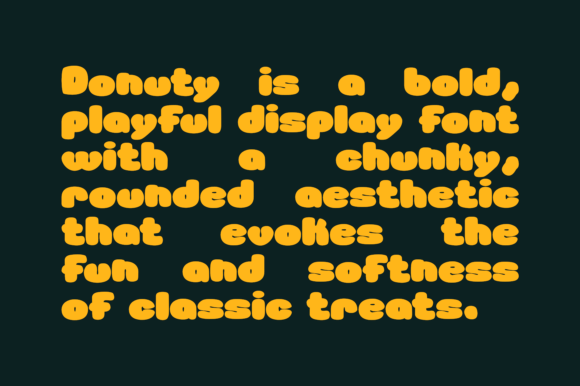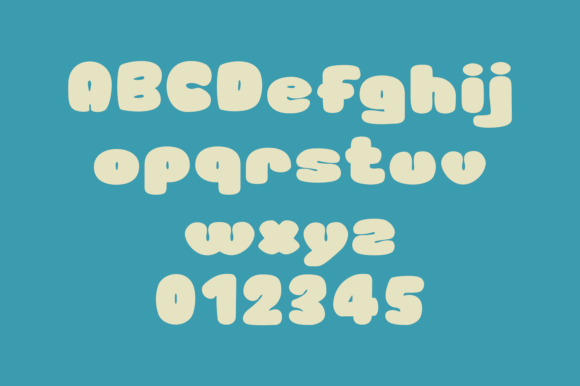
Introducing Donuty Font: The Playful and Cheerful Display Font
Are you looking for a font that can add a touch of fun and friendliness to your designs? Look no further than Donuty Font! This bold and playful display font is perfect for creating eye-catching designs that instantly grab attention. With its soft, rounded shapes and chunky, bubbly style, Donuty is ideal for a wide range of projects, from kids’ content to food branding and social media graphics.
The Unique Characteristics of Donuty Font
What sets Donuty apart from other fonts is its doughy, cartoon-like appearance. The font’s soft, rounded shapes give it a warm and charming feel that’s perfect for designs that need a cheerful touch. Donuty’s chunky, bubbly style makes it perfect for creating fun and playful designs that appeal to kids and adults alike.
Ideal Uses for Donuty Font
Donuty is a versatile font that can be used for a wide range of projects, including:
- Fun branding: Donuty is perfect for creating playful and eye-catching logos, packaging, and marketing materials for food brands, kids’ products, and other businesses that need a friendly and approachable image.
- Children’s content: Donuty’s playful and cheerful style makes it ideal for kids’ books, educational materials, and other content that needs to appeal to young audiences.
- Party invites: Donuty is perfect for creating fun and festive party invitations, decorations, and other materials that need to capture the excitement and energy of a celebration.
- Sweet-themed products: Donuty’s doughy, cartoon-like appearance makes it ideal for designs that feature sweet treats, such as baked goods, candies, and other desserts.
- Social media graphics: Donuty’s bold and playful style makes it perfect for creating eye-catching social media graphics, including Facebook posts, Instagram stories, and Twitter headers.
Why Designers and Crafters Love Donuty Font
Donuty has quickly become a favorite among designers and crafters who need a font that can add a touch of fun and personality to their designs. Here are just a few reasons why:
- Easy to read: Despite its playful style, Donuty is surprisingly easy to read, even at small sizes.
- Highly versatile: Donuty can be used for a wide range of projects, from logos and packaging to social media graphics and party invitations.
- Instantly recognizable: Donuty’s unique doughy, cartoon-like appearance makes it instantly recognizable and memorable.
Tips for Using Donuty Font Effectively
Here are a few tips for using Donuty font effectively in your designs:
- Use it boldly: Donuty is a bold and playful font, so don’t be afraid to use it in large sizes to create a statement piece.
- Pair it with contrasting fonts: Donuty pairs well with contrasting fonts, such as serif or script fonts, to create visual interest and add depth to your designs.
- Experiment with colors: Donuty looks great in bright, bold colors, but it can also be used in pastel colors or monochromatic schemes to create a softer look.
| Font Name | Donuty Font |
| Author | Tea fonts |
Donuty font is a playful and cheerful display font that’s perfect for designers and crafters who need to add a touch of fun and personality to their designs. With its soft, rounded shapes and chunky, bubbly style, Donuty is ideal for a wide range of projects, from kids’ content to food branding and social media graphics. Whether you’re creating logos, packaging, party invitations, or social media graphics, Donuty is sure to bring warmth and charm to your designs.